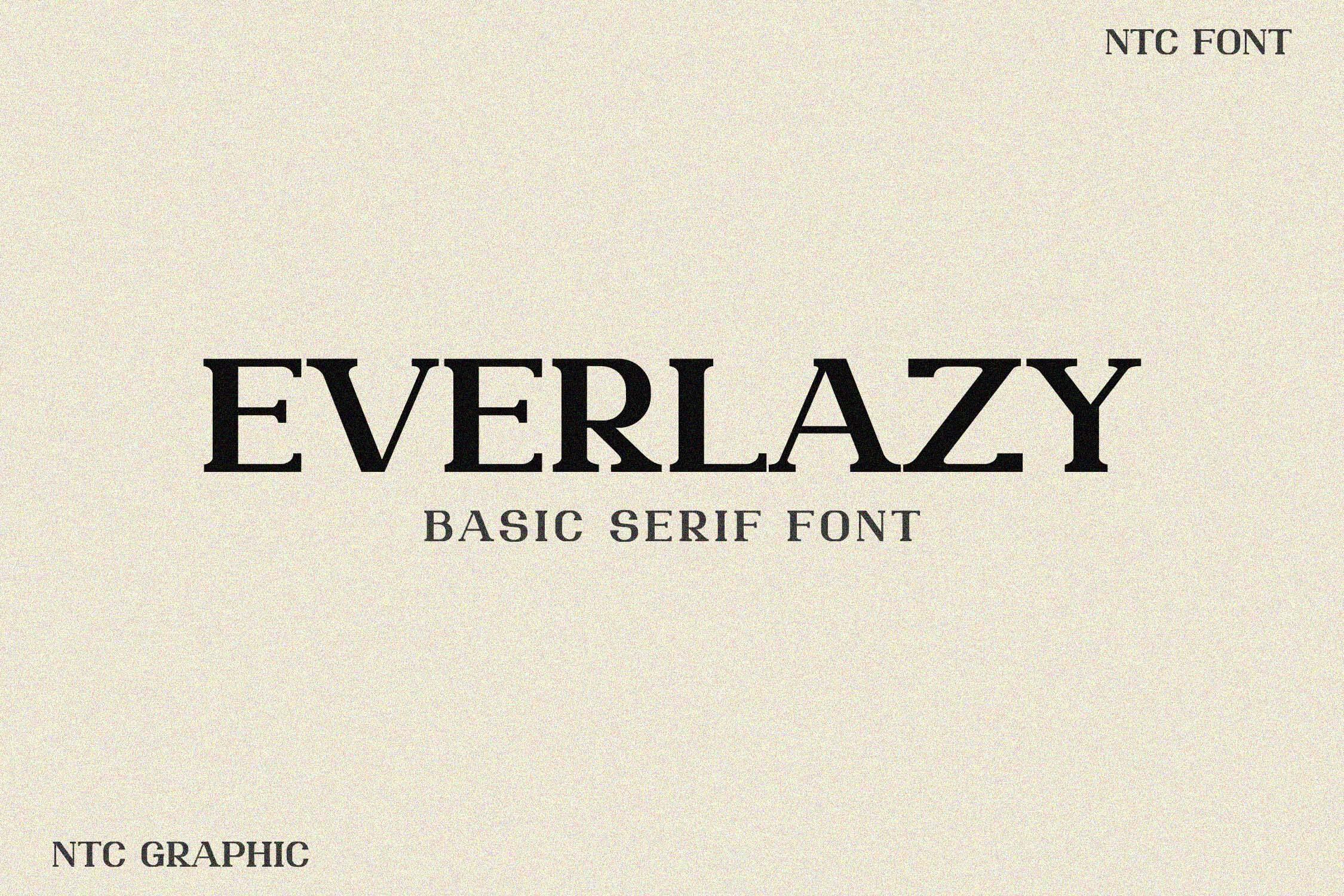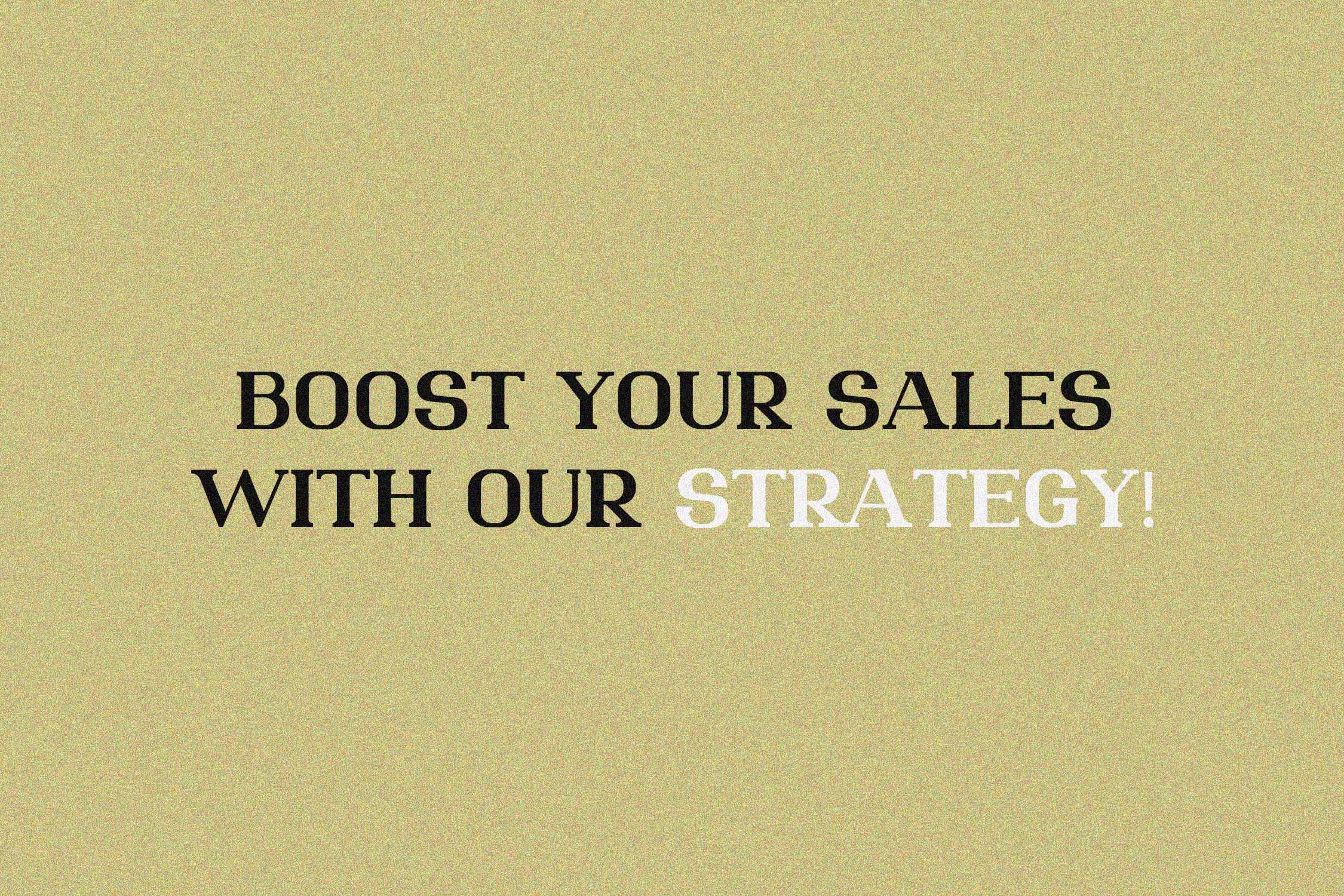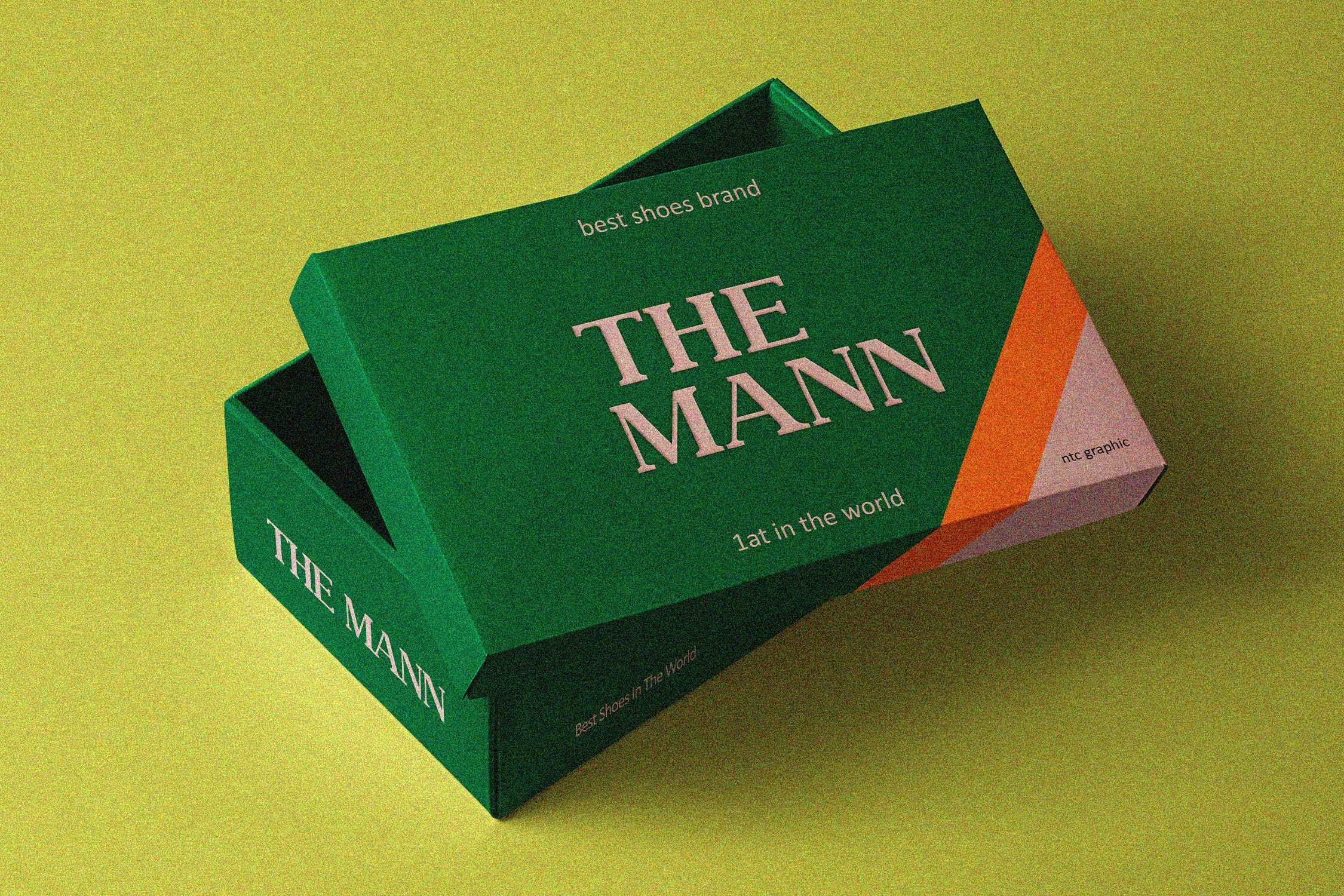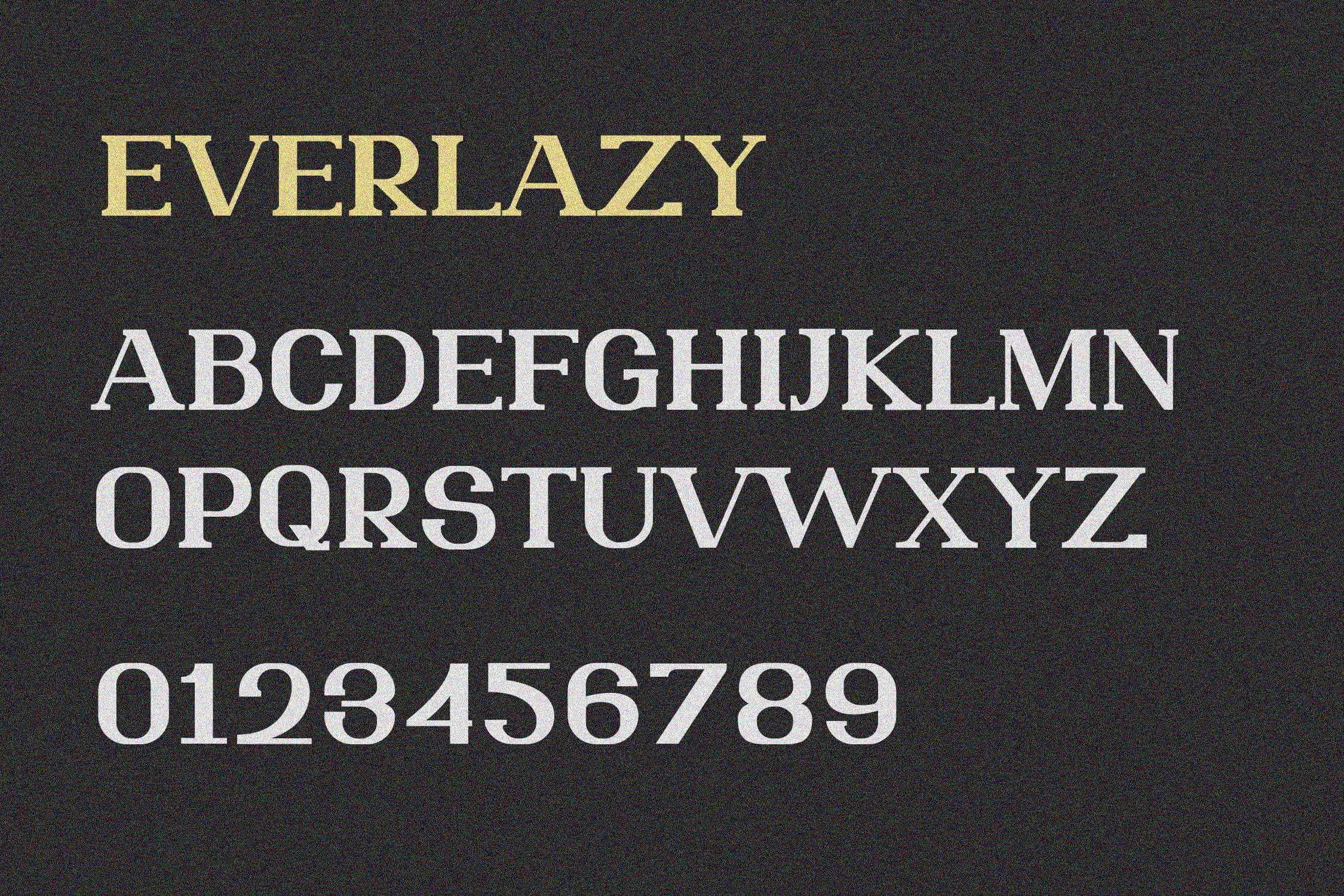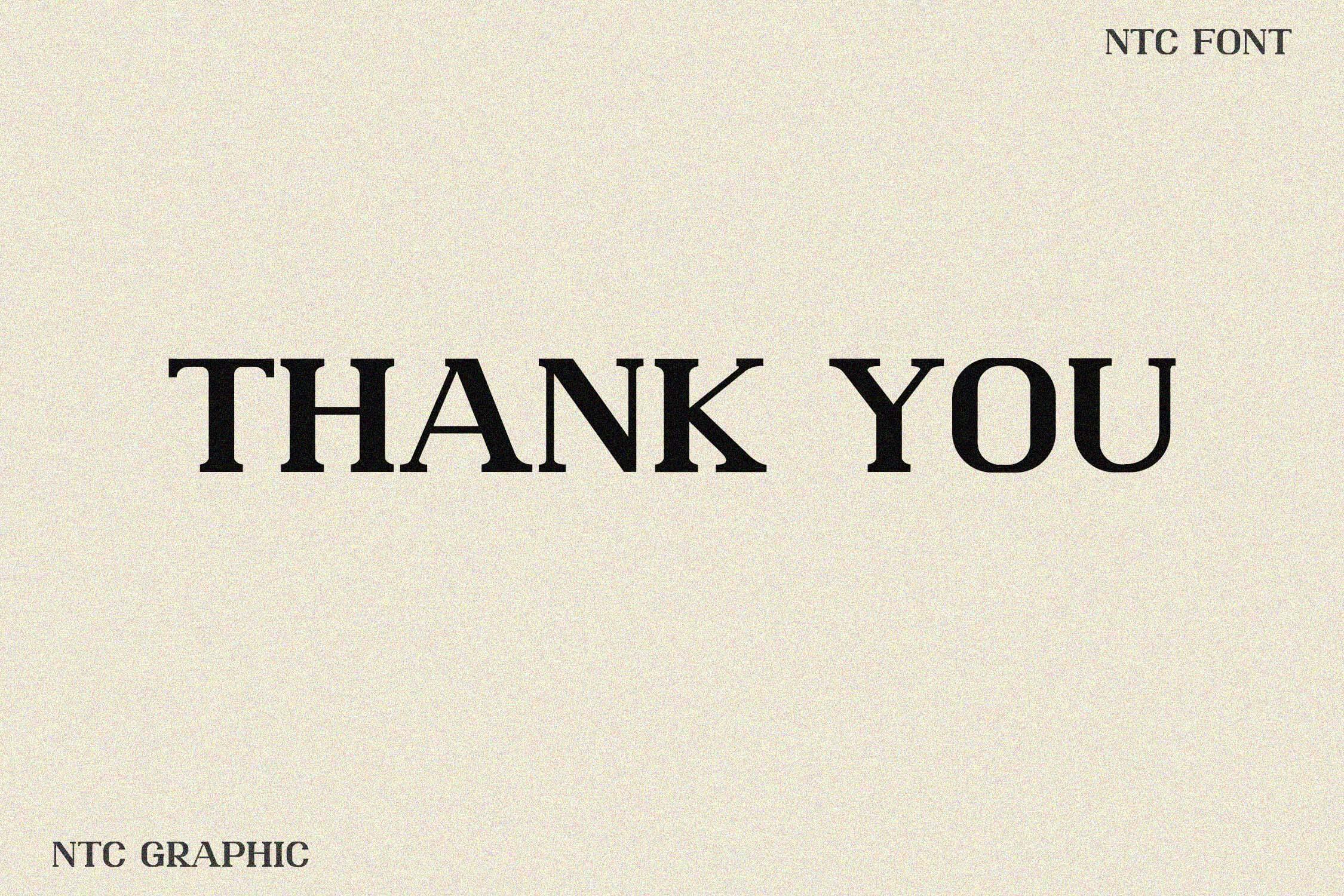
EVERLAZY is a sophisticated serif font designed with a clean, minimalist aesthetic. Its uniquely crafted letterforms create a distinctive yet versatile look, making it perfect for enhancing your design projects with a touch of elegance and professionalism. Whether for branding, editorial layouts, packaging, or digital designs, EVERLAZY ensures a refined and modern appeal.